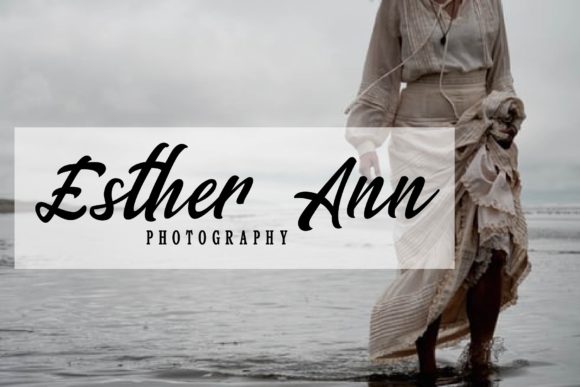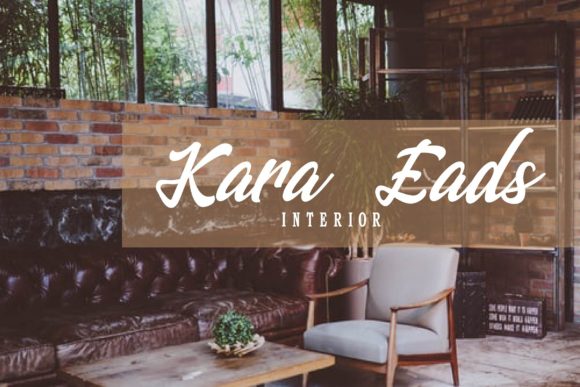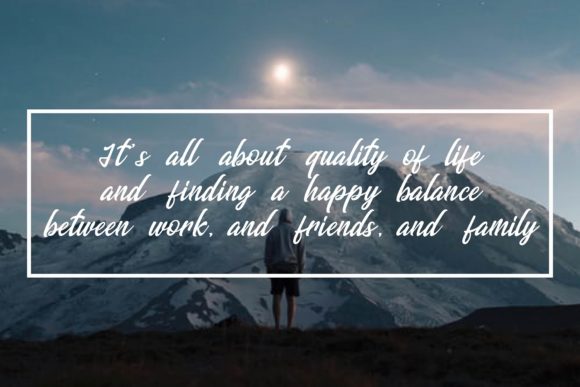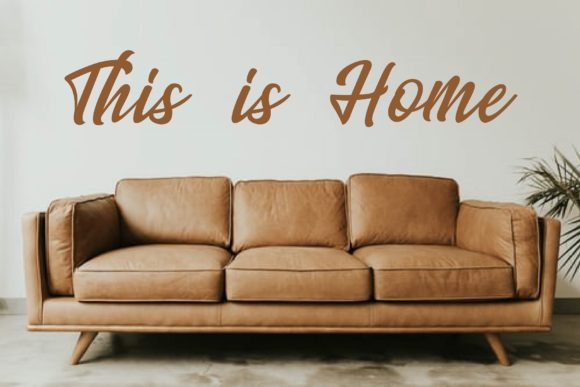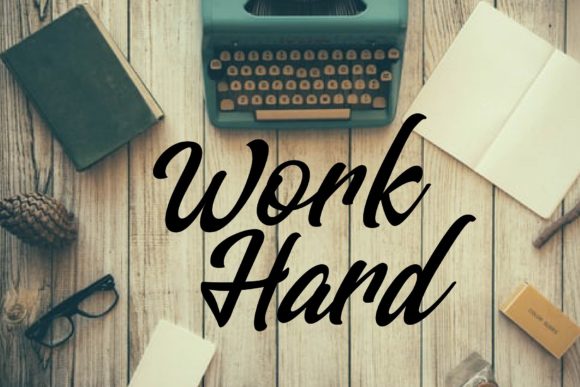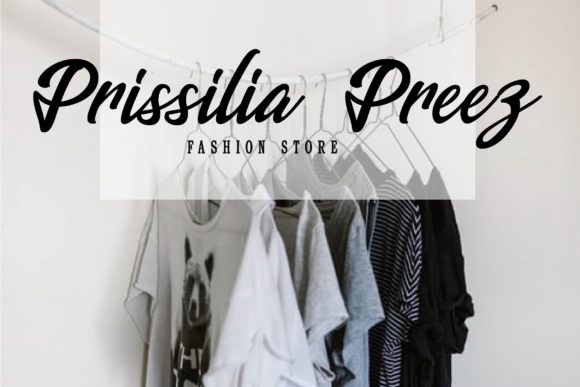
Introduction to Qulegaf Font
Do you remember that moment when you finally find the perfect design element to elevate your project? The excitement, the sense of accomplishment, and the joy of seeing your vision come to life? For designers, this feeling is a regular occurrence, and it’s all thanks to the amazing tools and resources at our disposal. One such gem is the Qulegaf Font, a beautiful, paint-brushed script font that has the power to transform any creation.
Whether you’re working on a free download, a high-quality digital art piece, or a creative project with a transparent background, the Qulegaf Font is an invaluable design resource that can take your work to the next level. With its unique character and versatility, this font is sure to become a staple in your design library.
Key Features of Qulegaf Font
- High-quality design resource suitable for various creative projects, including graphic design and digital art.
- Unique, handcrafted design with a transparent background, allowing for seamless integration into various design elements.
- Perfect for adding a touch of elegance and sophistication to your design projects, including logos, typography, and more.
- Supports various font sizes and resolutions, making it suitable for both small and large-scale designs.
- Includes a range of characters, including uppercase and lowercase letters, numbers, and special characters, to cater to various design needs.
Honest Review: Qulegaf Font
As a designer, I’m always on the lookout for high-quality design resources to elevate my creative projects. Recently, I came across the Qulegaf Font, and I’m excited to share my thoughts on it.
- ✨ High-quality glyphs and characters that render beautifully on screen.
- ✨ Clear and transparent background, making it easy to work with.
- ✨ Versatile and modern design that’s perfect for a wide range of creative projects.
However, I do have a few concerns:
- ⚠️ Limited character set, which might be a concern for those who need to use the font for extensive text-based projects.
Overall, I’m impressed with the Qulegaf Font’s potential to add a touch of modernity to my designs. While it may have some limitations, I believe it’s a valuable addition to any designer’s toolkit. If you’re looking for a high-quality font for your creative project, I’d definitely recommend checking it out.
Common Use Cases for Qulegaf Font
Qulegaf Font is ideal for creative projects, including:
1. Branding and logo design.
2. Infographics and visual content.
3. Social media graphics and advertising.
4. Print materials, such as business cards and brochures.